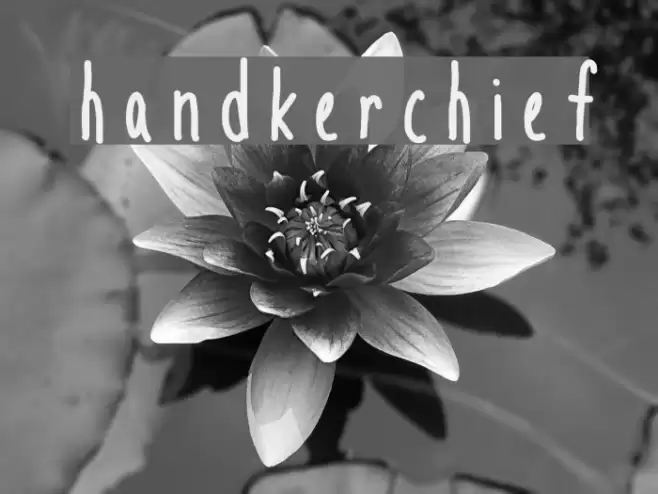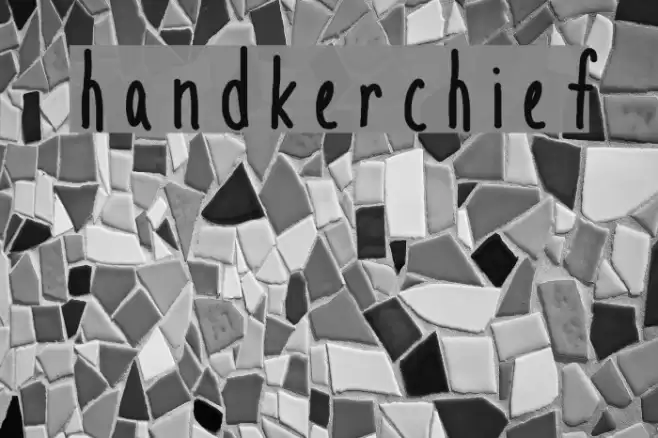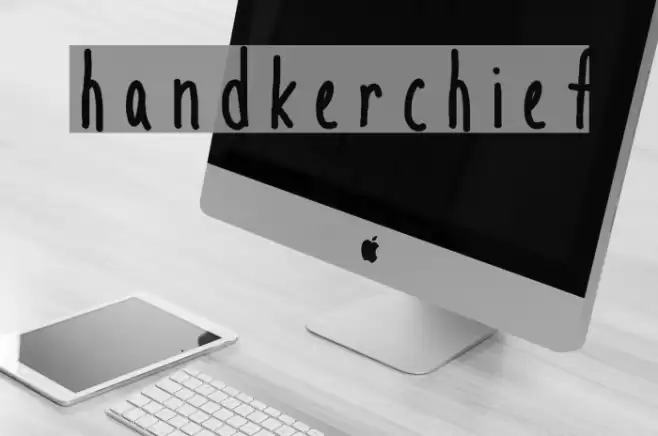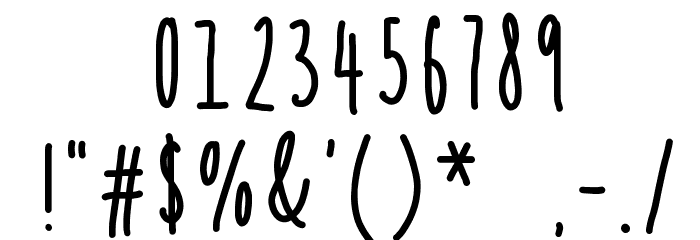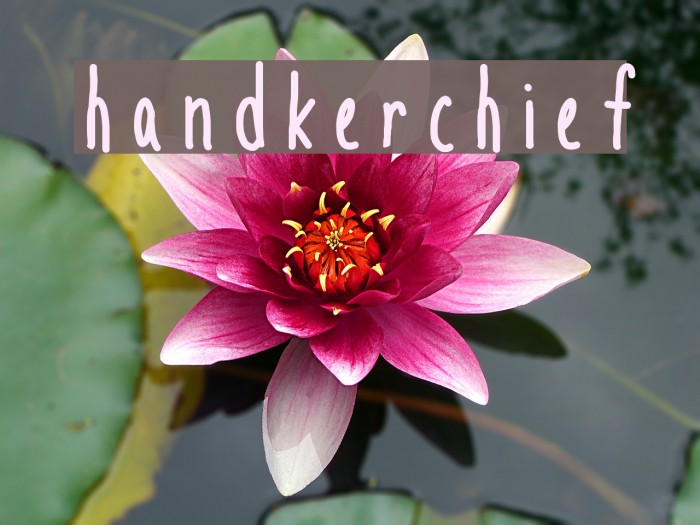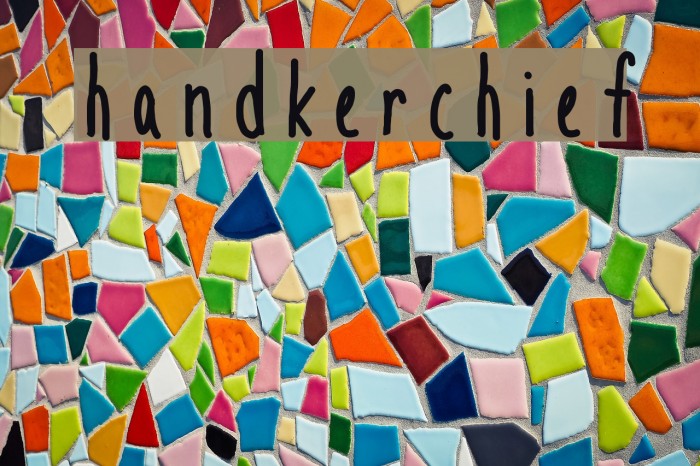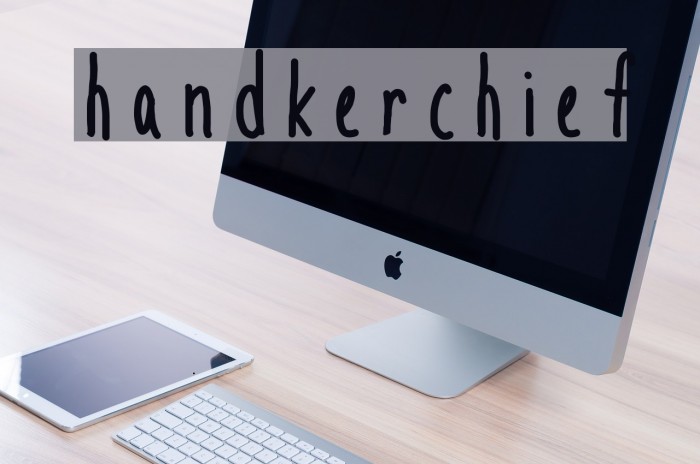
handkerchief Font
handkerchief Description
This font features a playful and casual handwritten style, characterized by its uneven strokes and slightly irregular letterforms. The uppercase letters are tall and narrow, while the lowercase letters maintain a consistent height, giving the font a cohesive appearance. The numerals are clear and legible, matching the overall informal aesthetic. Special characters are included, maintaining the same whimsical quality. The font's organic feel makes it suitable for projects that require a personal touch or a relaxed vibe.
A playful, casual handwritten font with uneven strokes and a whimsical style from Handwritten fonts.
- Proposed Projects: Ideal for greeting cards, personal blogs, children's books, and informal branding projects.
- Overall Style: Casual, Playful
- Use Case: Headlines, Informal text, Personal projects